Choosing from logo fonts for branding, posters, and designs – expressive fonts starts with the job your typography must do. Consider the words, their final size, and the mood of the project. The options below are organized to help you compare useful directions before testing candidates in your own layout.
How to evaluate the options
Set the real headline, name, or label in each candidate. Check legibility at the final size, compare the capitals and repeated letters, and leave enough room for decorative details. Use a quieter companion font for long descriptions and other supporting text.
Font picks
Bynoxda Font for logos
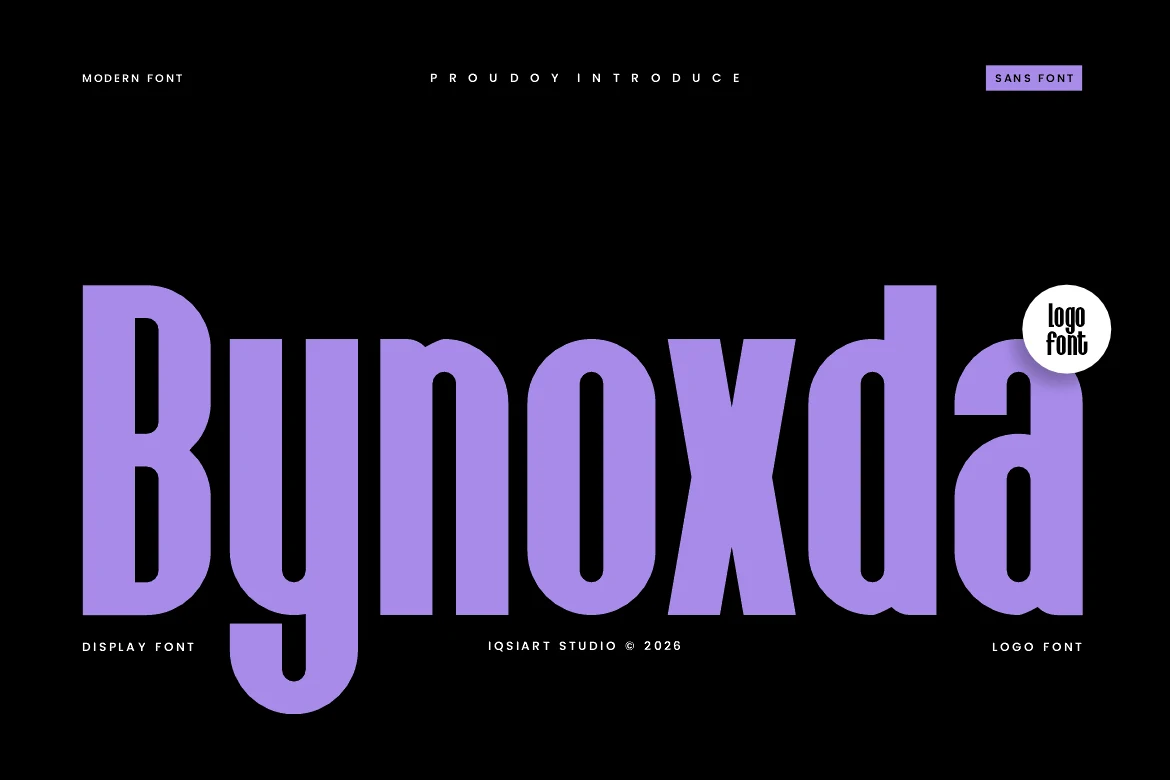
Bynoxda Font is worth testing for logos, branding, and headlines. Look for rounded letter shapes when comparing it with other options. Try it at both headline and label size to judge its clarity.
Davetica Font for logos
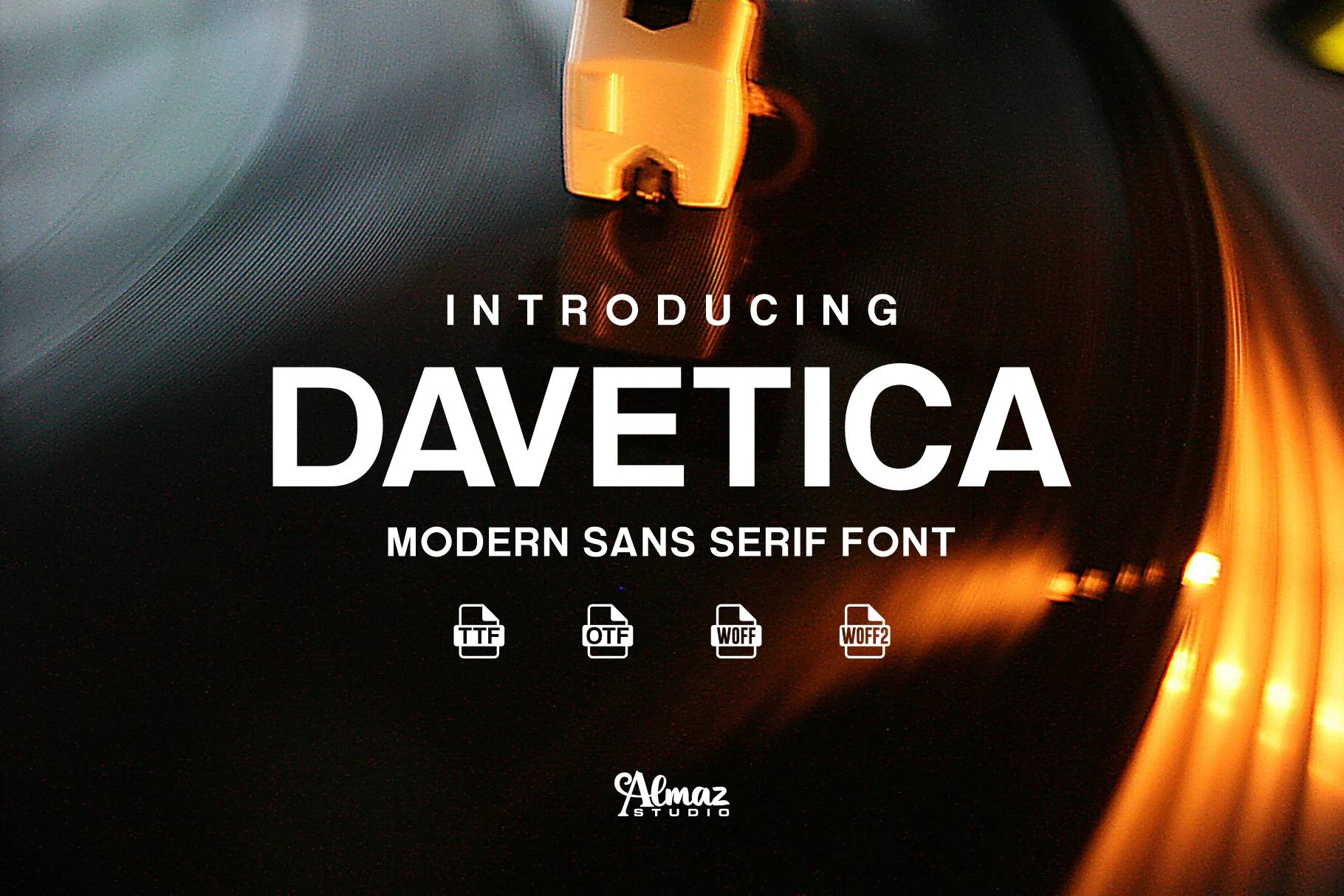
For logos, branding, and posters, consider Davetica Font. Its design draws on serif details. Inspect fine details before using it in small print.
Bardy Font for logos
Bardy Font can anchor logos, branding, and retro designs. The main visual cues are rounded letter shapes and a retro mood. Try it at both headline and label size to judge its clarity.
Twoswash Font for logos
Twoswash Font is worth testing for logos, branding, and beauty branding. Look for decorative swashes and serif details when comparing it with other options. Use flourishes selectively around short words or names.
Chock Tagmed Font for logos
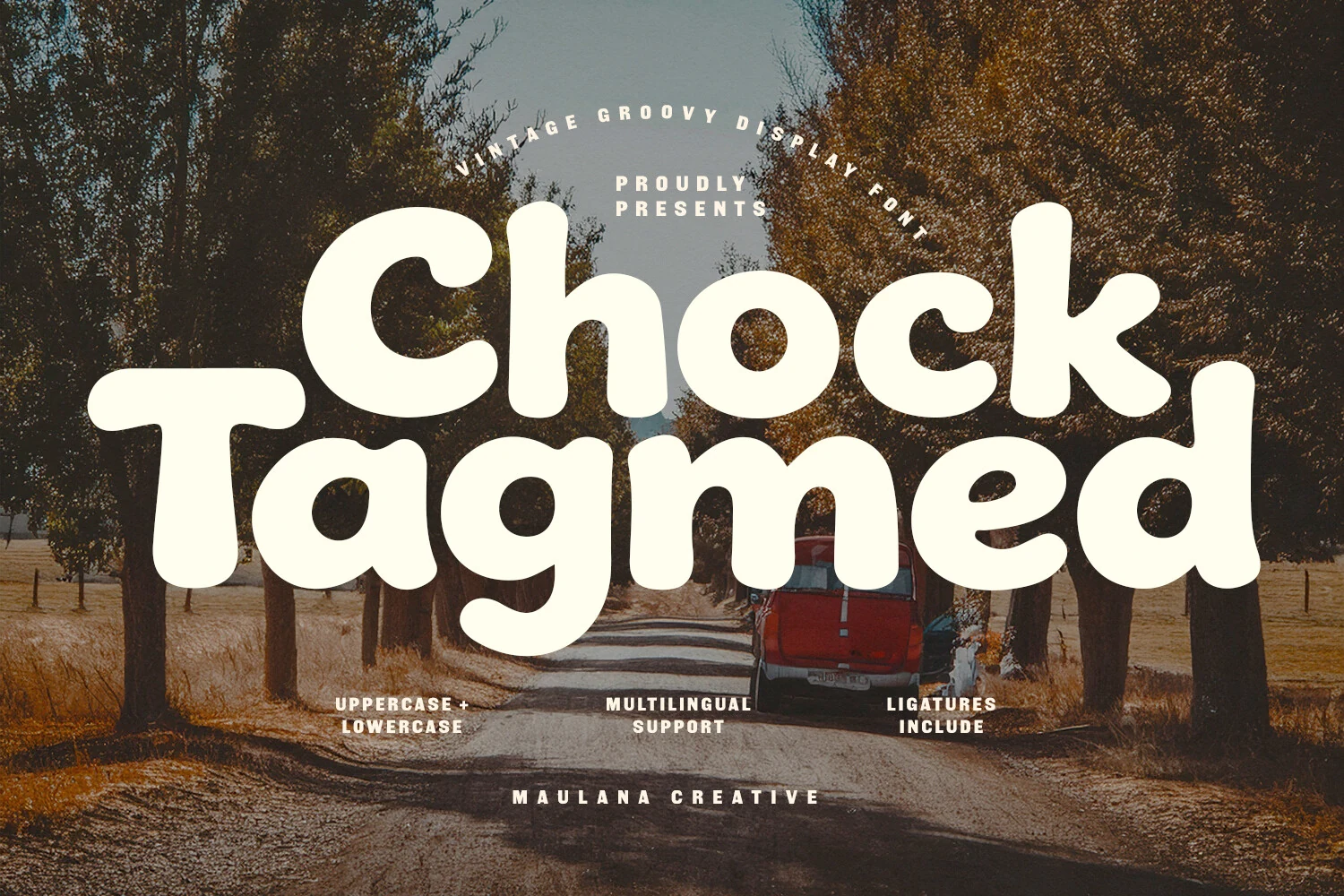
For logos, branding, and retro designs, consider Chock Tagmed Font. Its design draws on rounded letter shapes and a retro mood. Try it at both headline and label size to judge its clarity.
Final checks before using a font